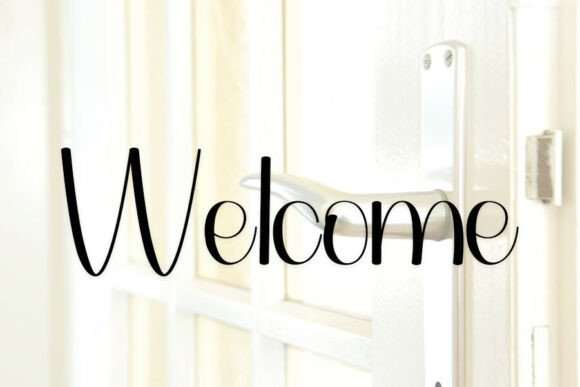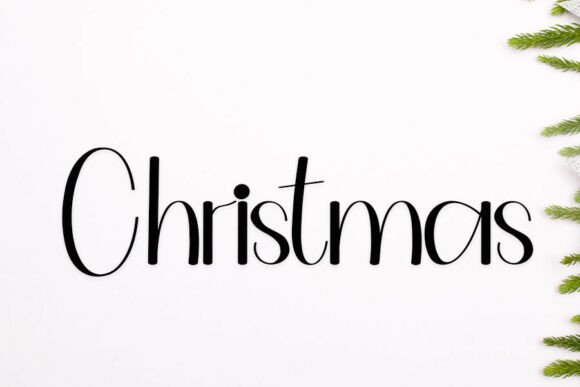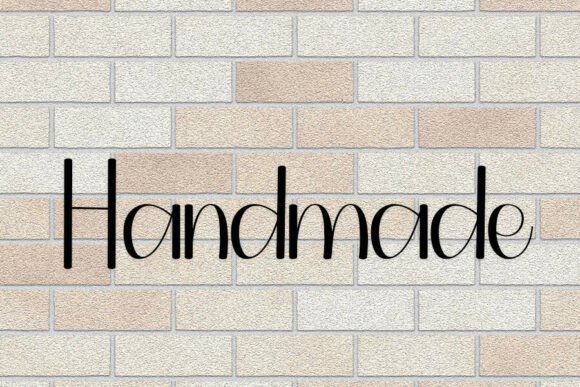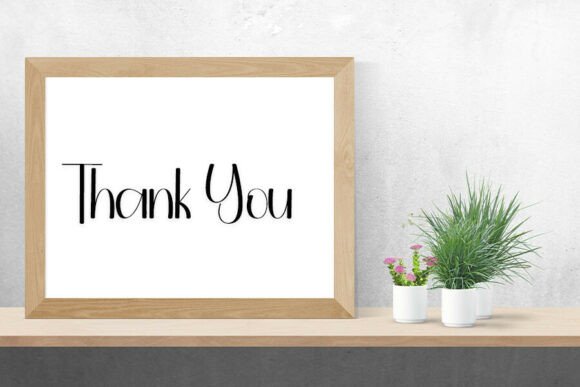
Bubble Font: Elevate Your Design with a Delicate Handwritten Touch
In the world of typography, fonts play a crucial role in conveying the tone and personality of a design. For designers and crafters looking to add a touch of uniqueness and coolness to their projects, the Bubble font is an excellent choice. This delicate handwritten font is carefully crafted to bring a fresh and modern appeal to various design applications, including letters, invitations, food products, titles, and more.
What is Bubble Font?
Bubble font is a type of script font that features elegant, cursive strokes and a distinctive bubble-like appearance. Its delicate nature makes it perfect for designs that require a subtle yet sophisticated touch. The font’s unique characteristics include:
- Handwritten style with a personal touch
- Delicate strokes and cursive connections
- Bubble-like appearance adding a playful touch
- Versatile and adaptable to various design applications
Uses of Bubble Font
The Bubble font is an incredibly versatile font that can be used in a wide range of design projects, including:
- Letters and Correspondence: Add a personal touch to your letters and invitations with the Bubble font’s elegant and cursive style.
- Food Products: Use the Bubble font to create eye-catching labels and packaging for food products, such as baked goods, candies, and specialty foods.
- Titles and Headings: Elevate your titles and headings with the Bubble font’s unique and modern appeal, perfect for designs that require a touch of sophistication.
- Invitations and Announcements: Make your invitations and announcements stand out with the Bubble font’s delicate and handwritten style.
Benefits of Using Bubble Font
The Bubble font offers several benefits to designers and crafters, including:
- Unique and Memorable: The Bubble font’s distinctive appearance makes it easy to create memorable and recognizable designs.
- Versatile and Adaptable: The font’s versatility allows it to be used in various design applications, from letters and invitations to titles and food products.
- Elegant and Sophisticated: The Bubble font’s delicate and cursive style adds an elegant and sophisticated touch to designs.
- Easy to Read: The font’s clear and legible nature makes it easy to read, even in smaller sizes.
Tips for Using Bubble Font Effectively
To get the most out of the Bubble font, consider the following tips:
- Pair with Complementary Fonts: Combine the Bubble font with complementary fonts to create visual interest and hierarchy.
- Use in Moderation: Use the Bubble font in moderation to avoid overwhelming the design.
- Pay Attention to Size: Pay attention to font size to ensure the Bubble font is legible and visually appealing.
The Bubble font is a delicate handwritten font that offers a unique and modern appeal to various design applications. Its versatility, elegance, and sophistication make it an excellent choice for designers and crafters looking to elevate their designs. With its clear and legible nature, the Bubble font is perfect for creating memorable and recognizable designs. By following the tips outlined above, you can effectively use the Bubble font to take your designs to the next level.